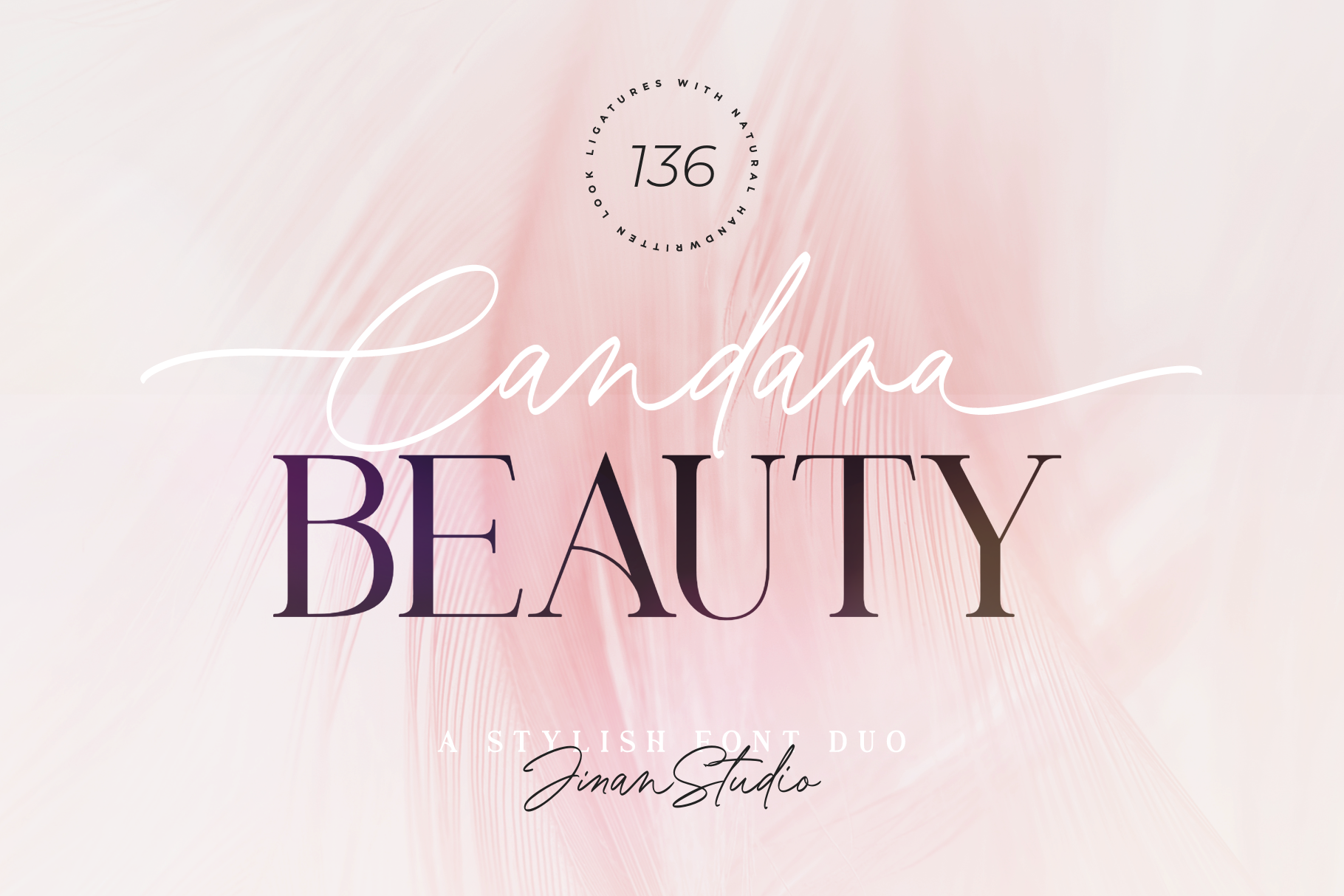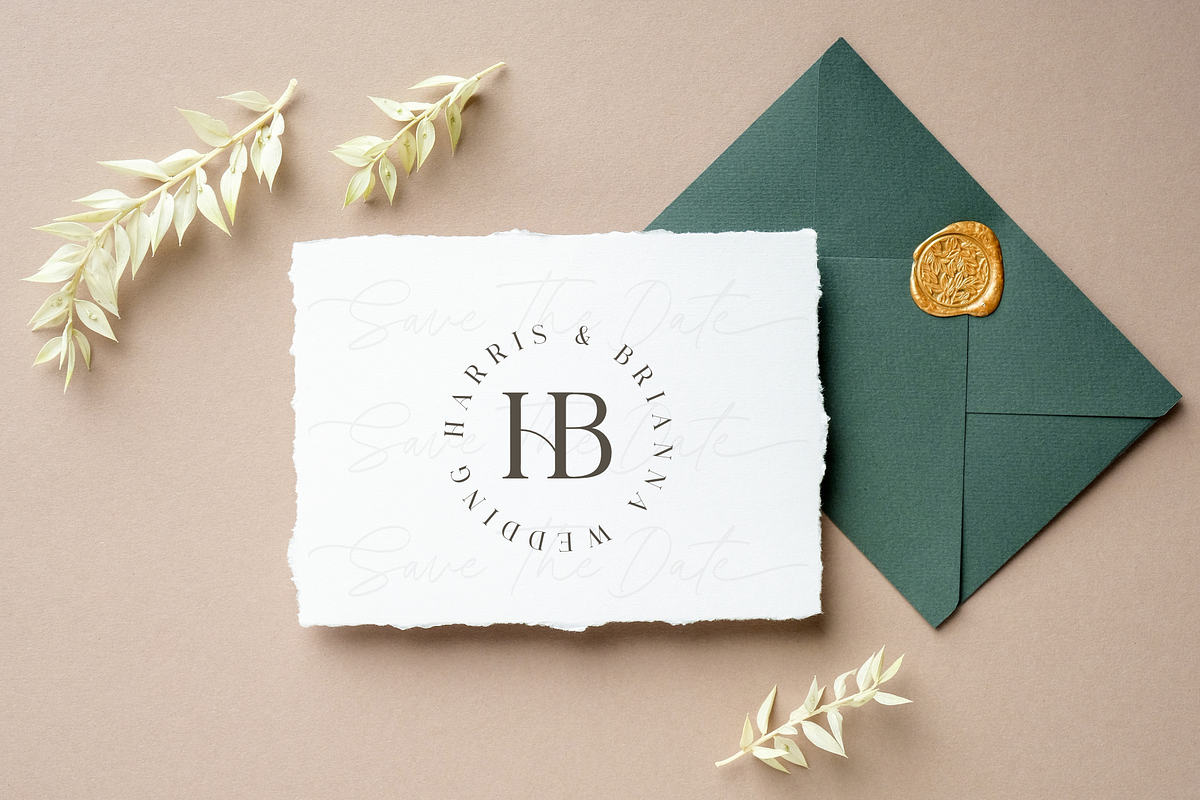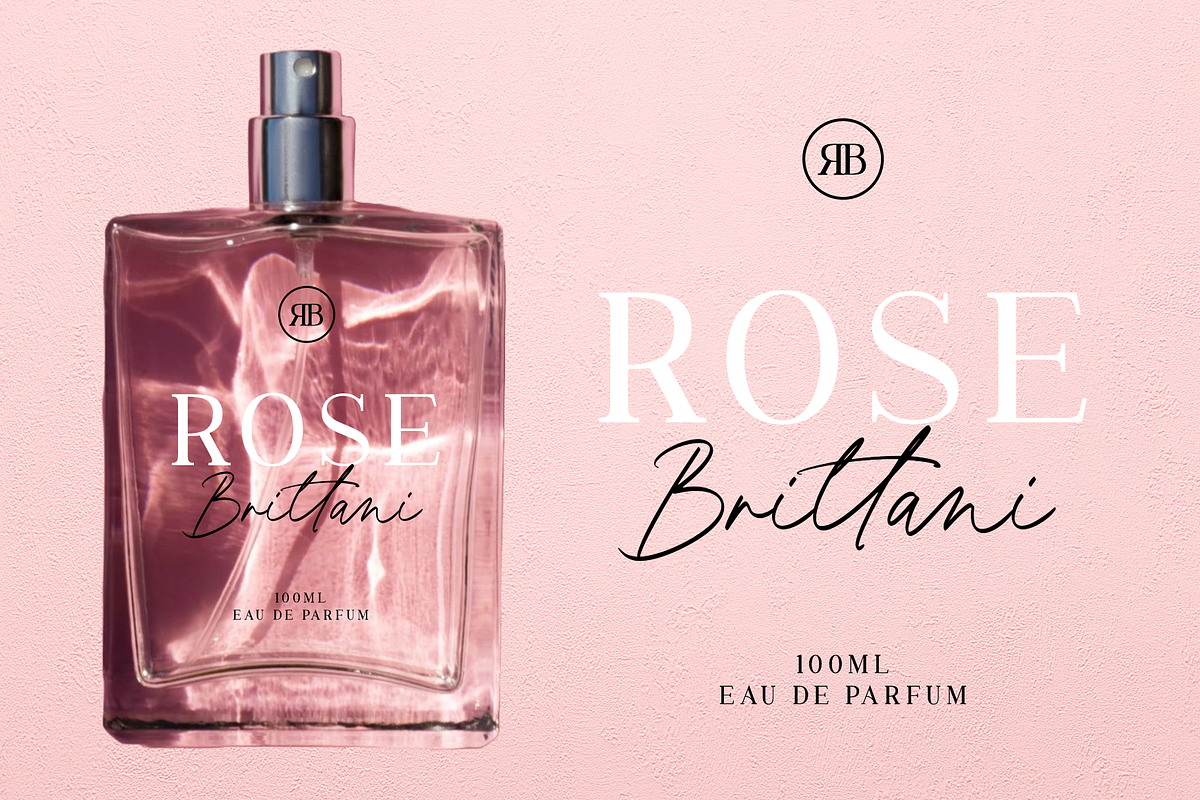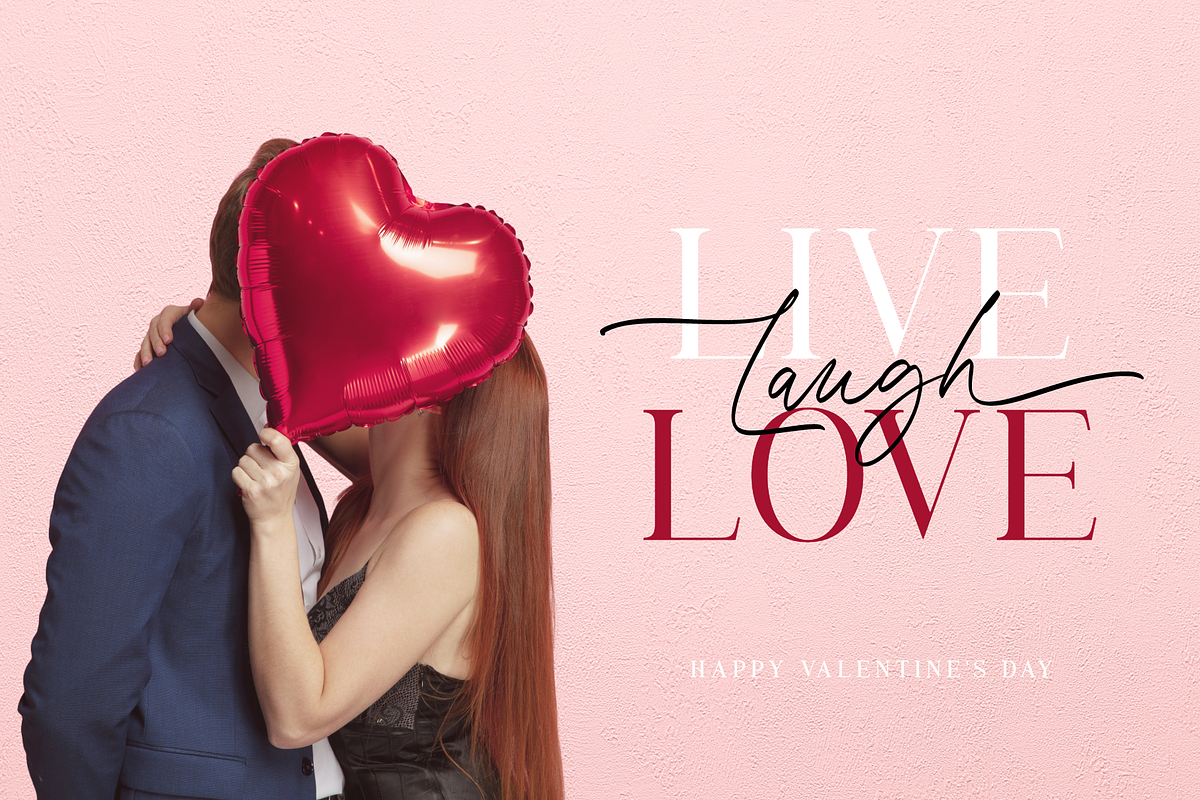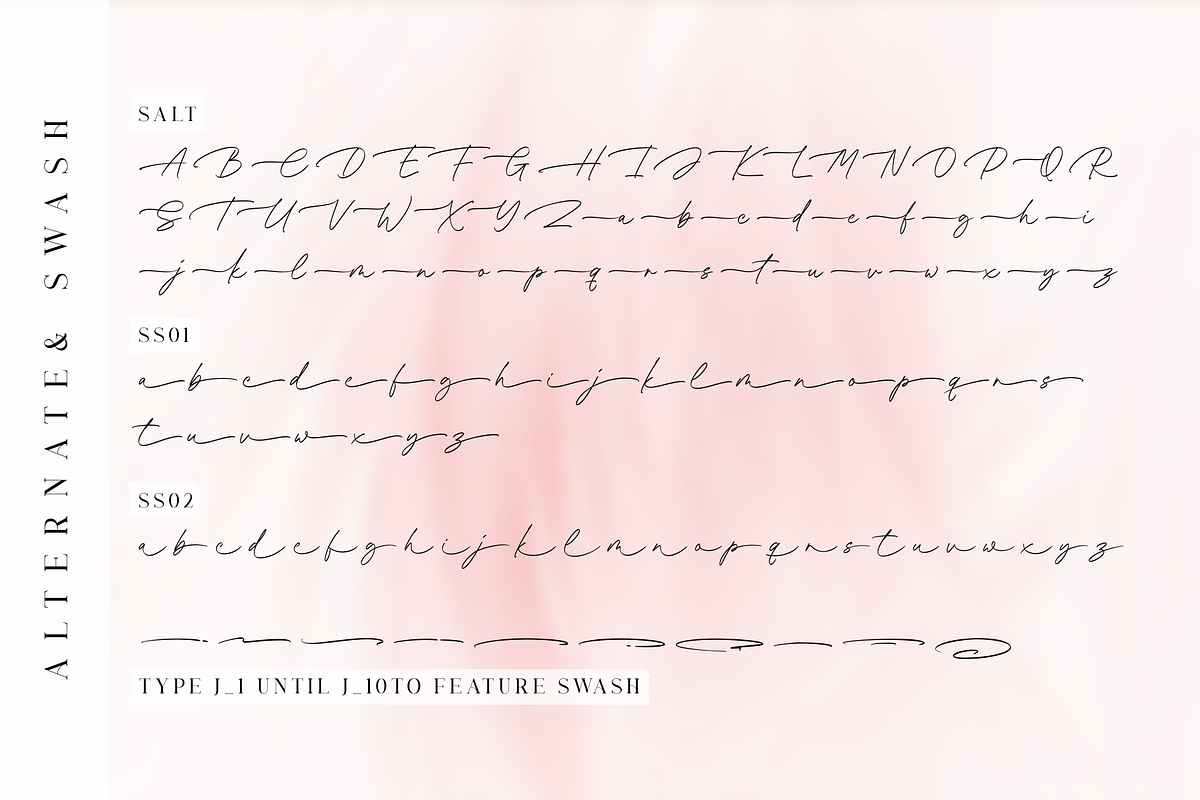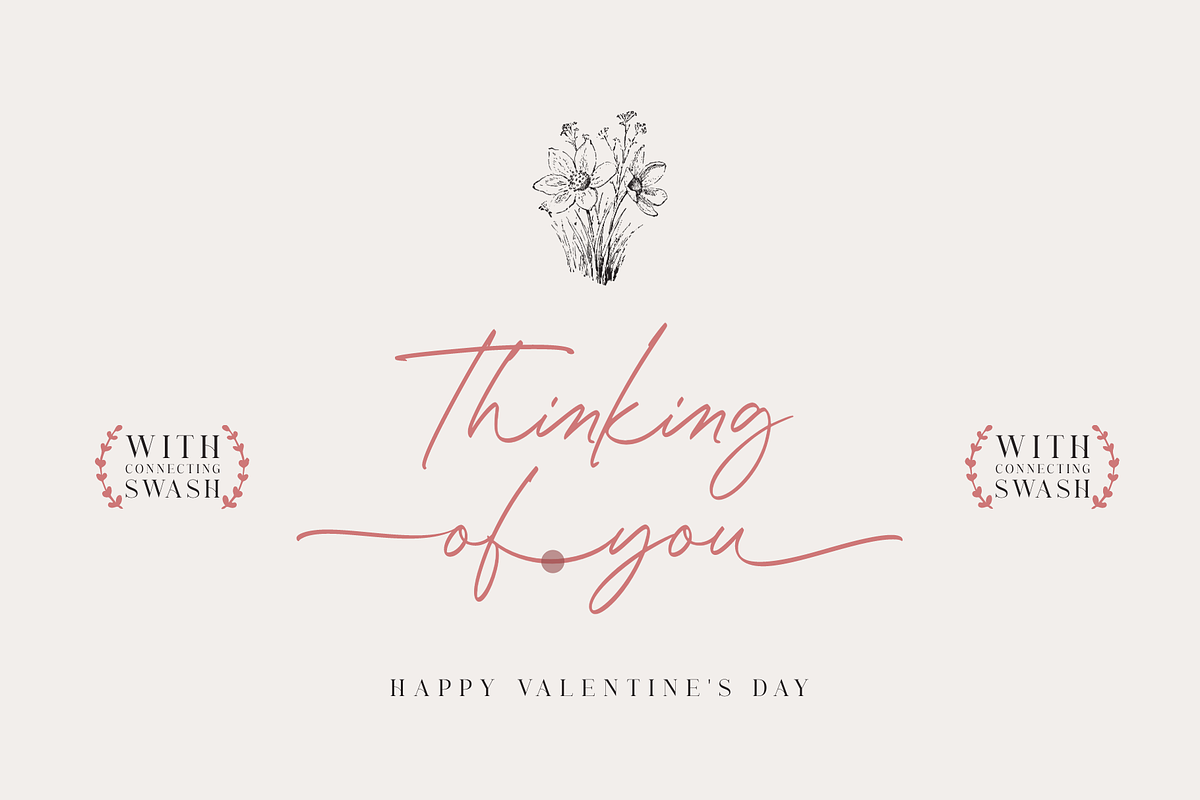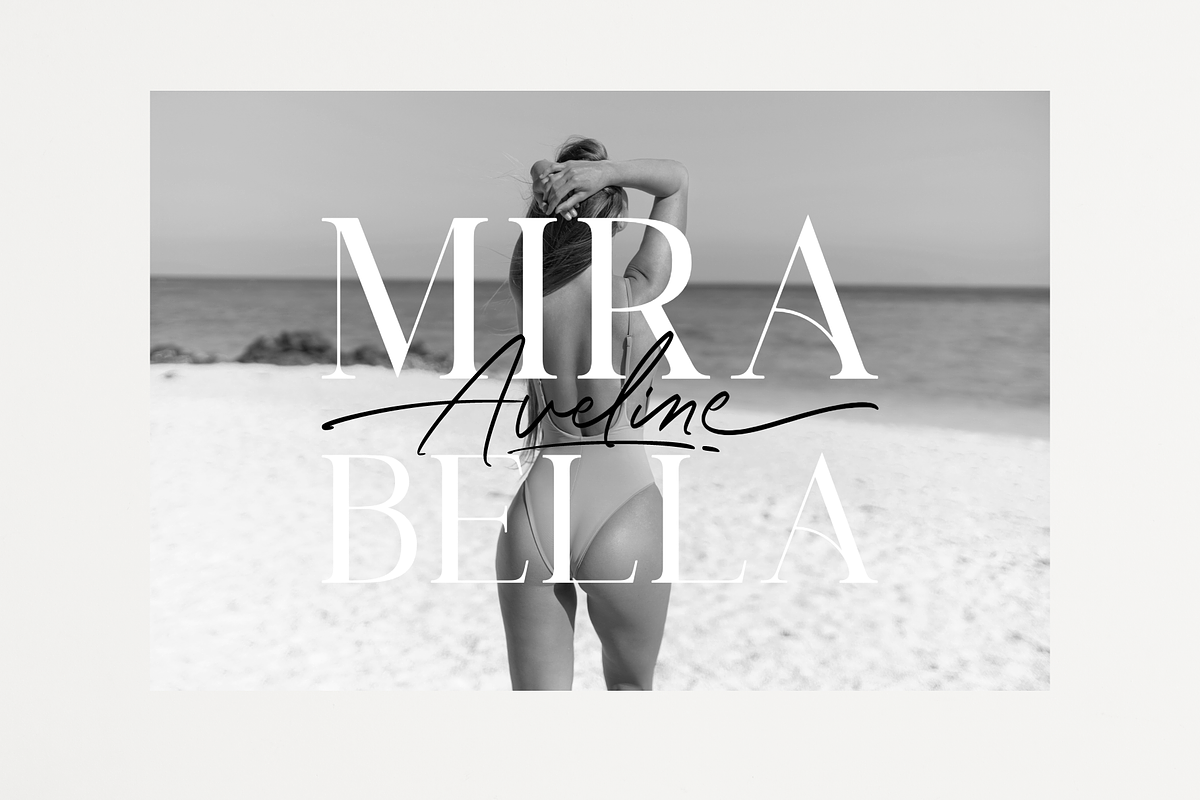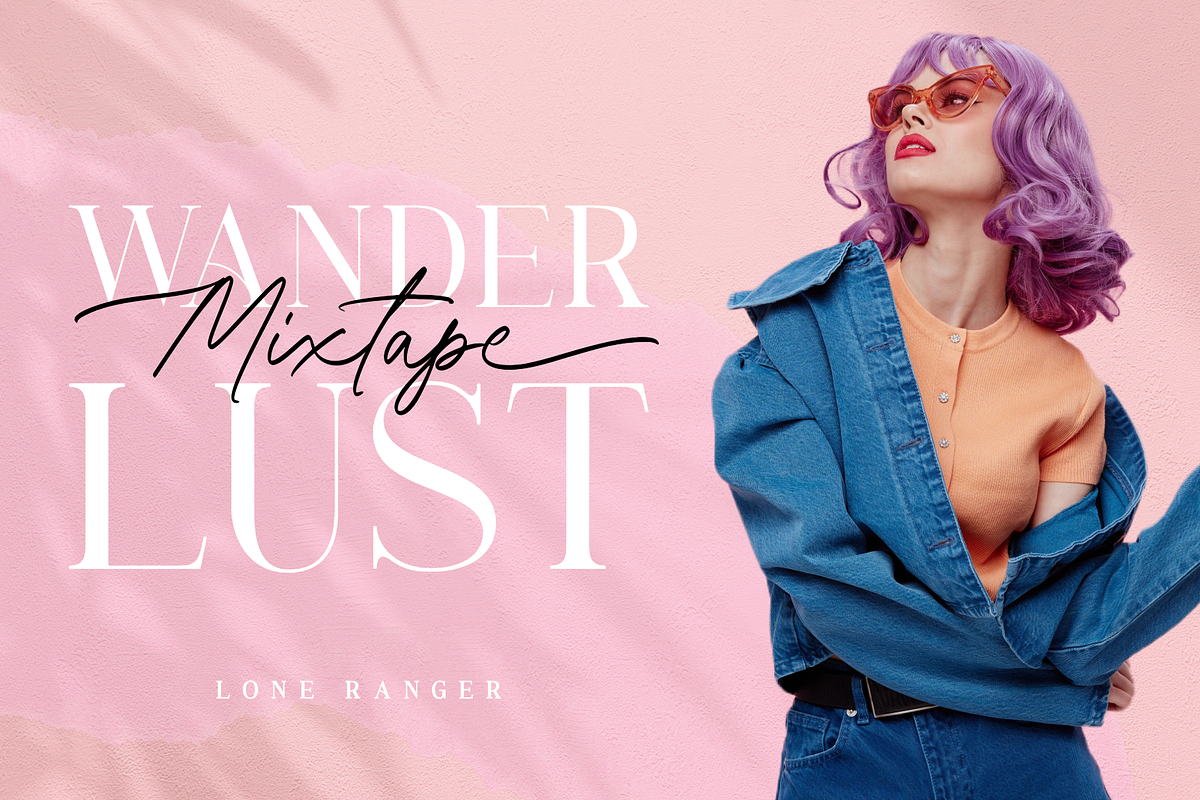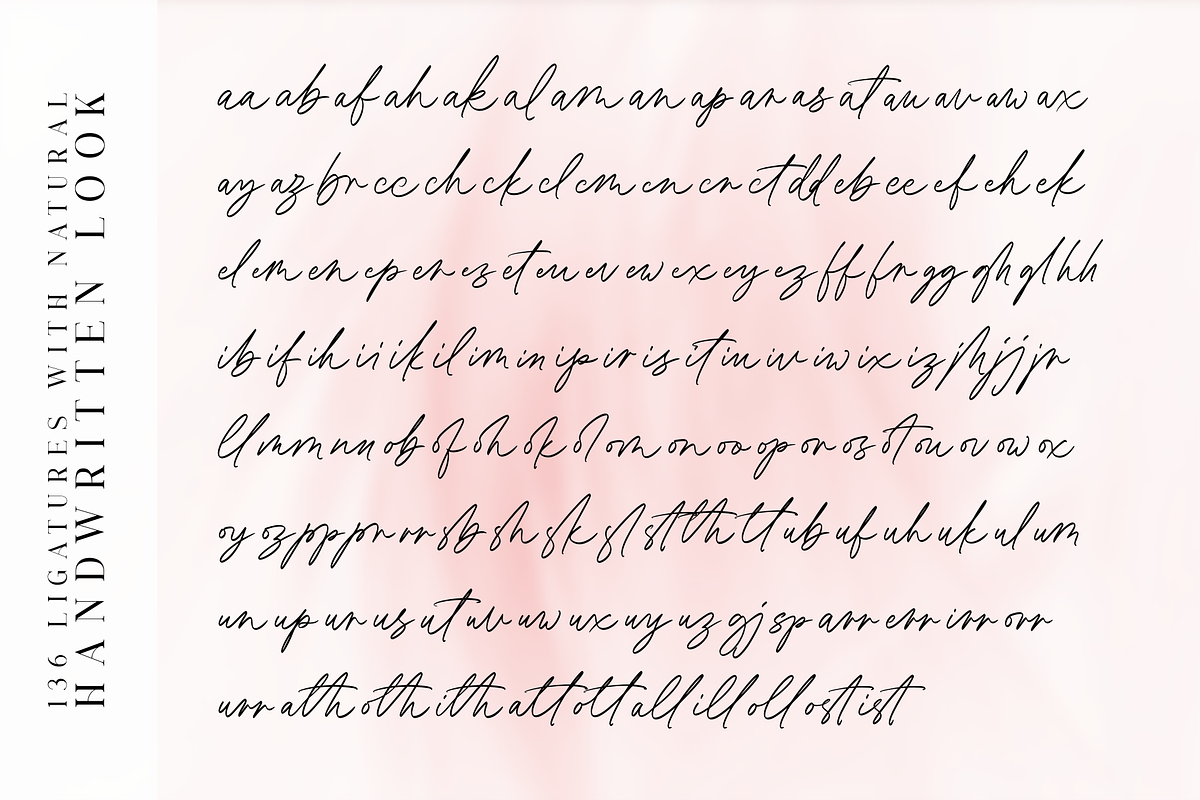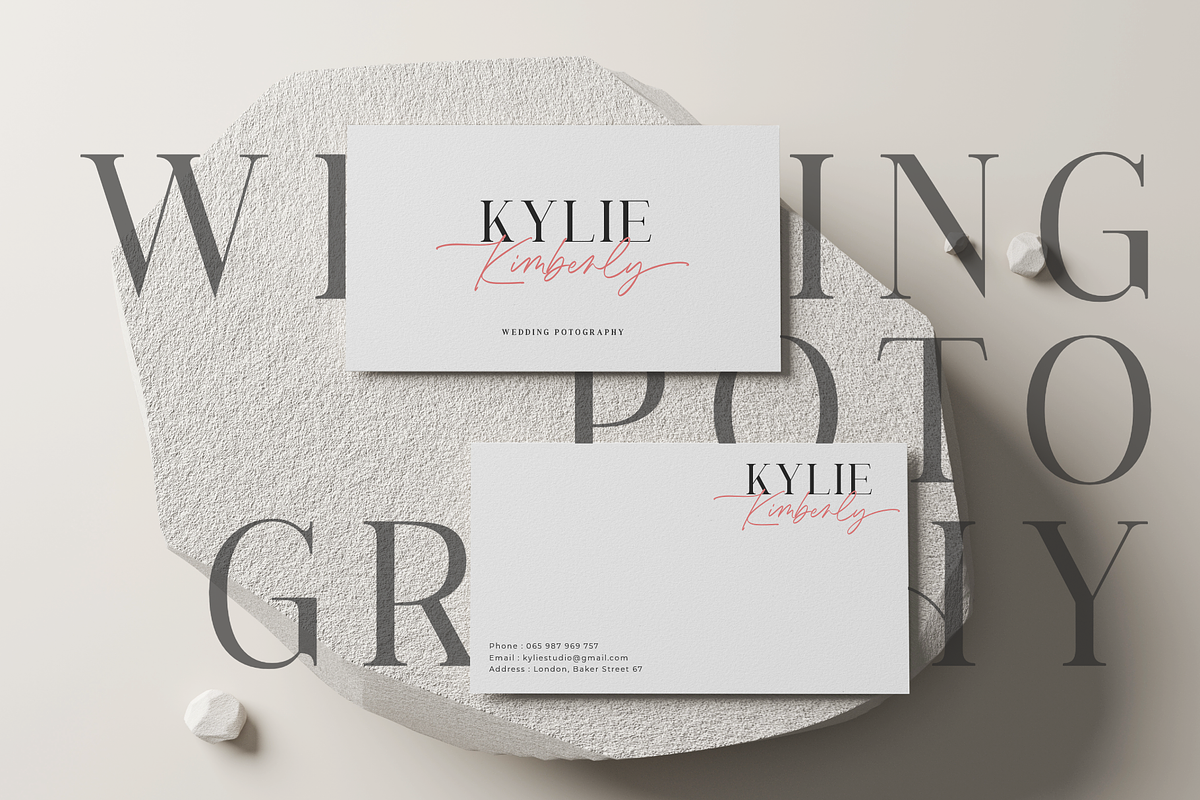
Candara Beauty - A Stylish Font Duo
Candara Beauty is a stylish font duo that includes both a classic serif and an elegant script version. It's perfect for weddings, Valentine's Day, branding, packaging, and any project that needs a loving touch. This font supports multiple languages and offers alternates, swash, and ligatures in the script version for added customization. With its modern charm, Candara Beauty adds sophistication and beauty to any project.
Alternates, ligatures, and swashes (script version)
Type j_1 until j_10 to features swash, ligatures will automatically replace the standard letter pairs whenever available, when using any OpenType capable software.